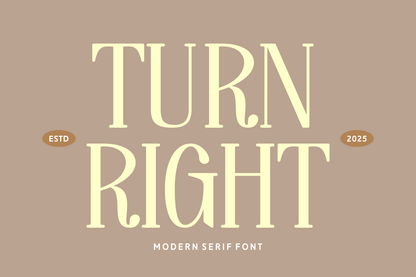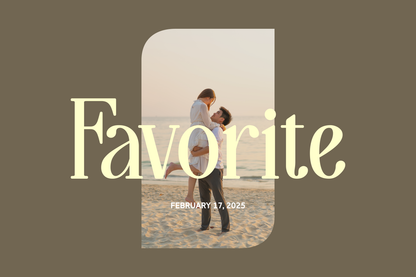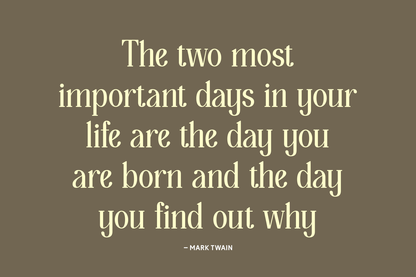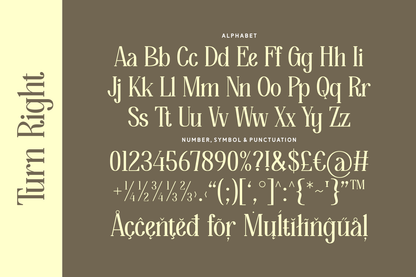
Turn Right is a quirky modern serif font with tall, narrow proportions and playful curves. It balances refined structure with subtle whimsy, making it perfect for branding that wants to feel both elegant and approachable. The softened edges and gentle flair in select letterforms add personality without overpowering readability.
Whether you're crafting packaging, headlines, or creative logos, Turn Right offers a clean but distinctive voice. It’s the kind of serif that feels right at home in both editorial layouts and boutique brand identities.